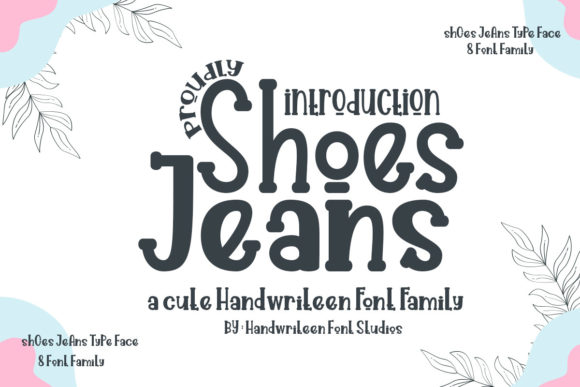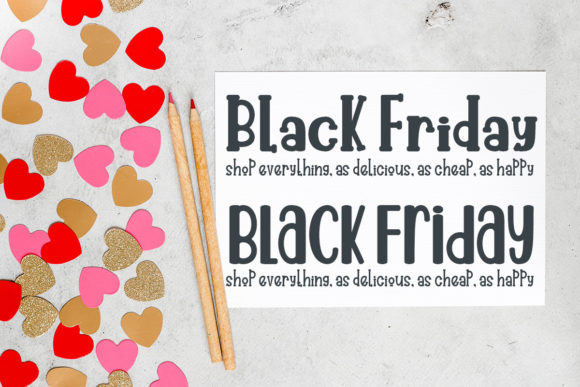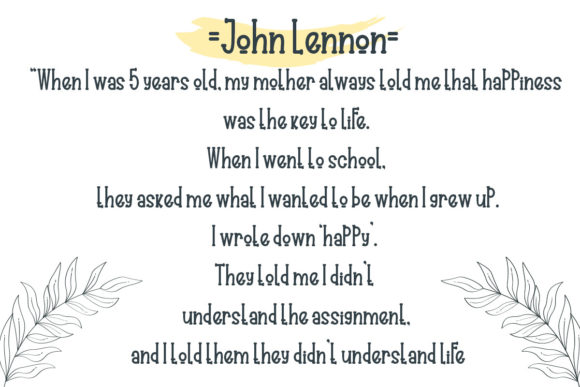
Introduction to Shoes Jeans Font
Do you remember that moment when you stumbled upon the perfect font for your creative project? The one that makes everything feel just right? For many designers, that moment is often elusive, but with the Shoes Jeans Font, you can bet it’s just around the corner. This adaptable display font is the perfect addition to any design resource, offering a high quality, friendly vibe that’s sure to make your project shine.
With its transparent background and effortless style, the Shoes Jeans Font is the ultimate design companion. Whether you’re working on a digital design, creating a presentation, or making greeting cards, this font has the potential to become your go-to choice. And the best part? It’s available for a free download, making it an invaluable resource for designers of all levels.
So why is the Shoes Jeans Font so valuable for designers? It’s simple: this font conveys a sense of friendliness and approachability that’s hard to find in other fonts. With its versatility and high quality, it’s the perfect choice for any creative project that requires a little extra something special.
Key Features of Shoes Jeans Font
- High-quality vector design suitable for various creative projects, including fashion and lifestyle designs.
- Transparent background, making it easy to customize and combine with other design elements.
- Unique characteristics: bold, modern, and stylish design elements, perfect for fashion and lifestyle brands.
Honest Review: Shoes Jeans Font
I recently stumbled upon the Shoes Jeans Font, and I must say it’s a unique addition to any creative project. The font is a high-quality resource that boasts a transparent background, making it perfect for designers looking for a clean and crisp look.
Here are some aspects that work well with the Shoes Jeans Font:
- ✨ Stylish and modern aesthetic that’s perfect for contemporary designs
- ✨ Highly customizable, allowing for easy adjustments to suit your needs
- ⚠️ Limited font family options, which may restrict its use in certain projects
Overall, I’m impressed with the Shoes Jeans Font. It’s a great design resource for creative projects, and its transparent background makes it a great choice for designers who value a clean and minimalist look. With its high-quality design and free download, it’s definitely worth checking out.
Tips for Getting the Most Out of Shoes Jeans Font
For the best results, use the font on a transparent background to create a clean and modern look. Experiment with different font sizes, colors, and styles to add depth and interest to your design. You can also pair the font with other design elements, such as images or icons, to create a unique and engaging design.
The Shoes Jeans Font is perfect for creative projects, such as social media graphics, posters, flyers, and presentations. It’s also great for design resources, such as blog headers, logos, and branding materials. With its high-quality design and transparent background, the Shoes Jeans Font is a versatile and useful design resource that’s free to download and use.